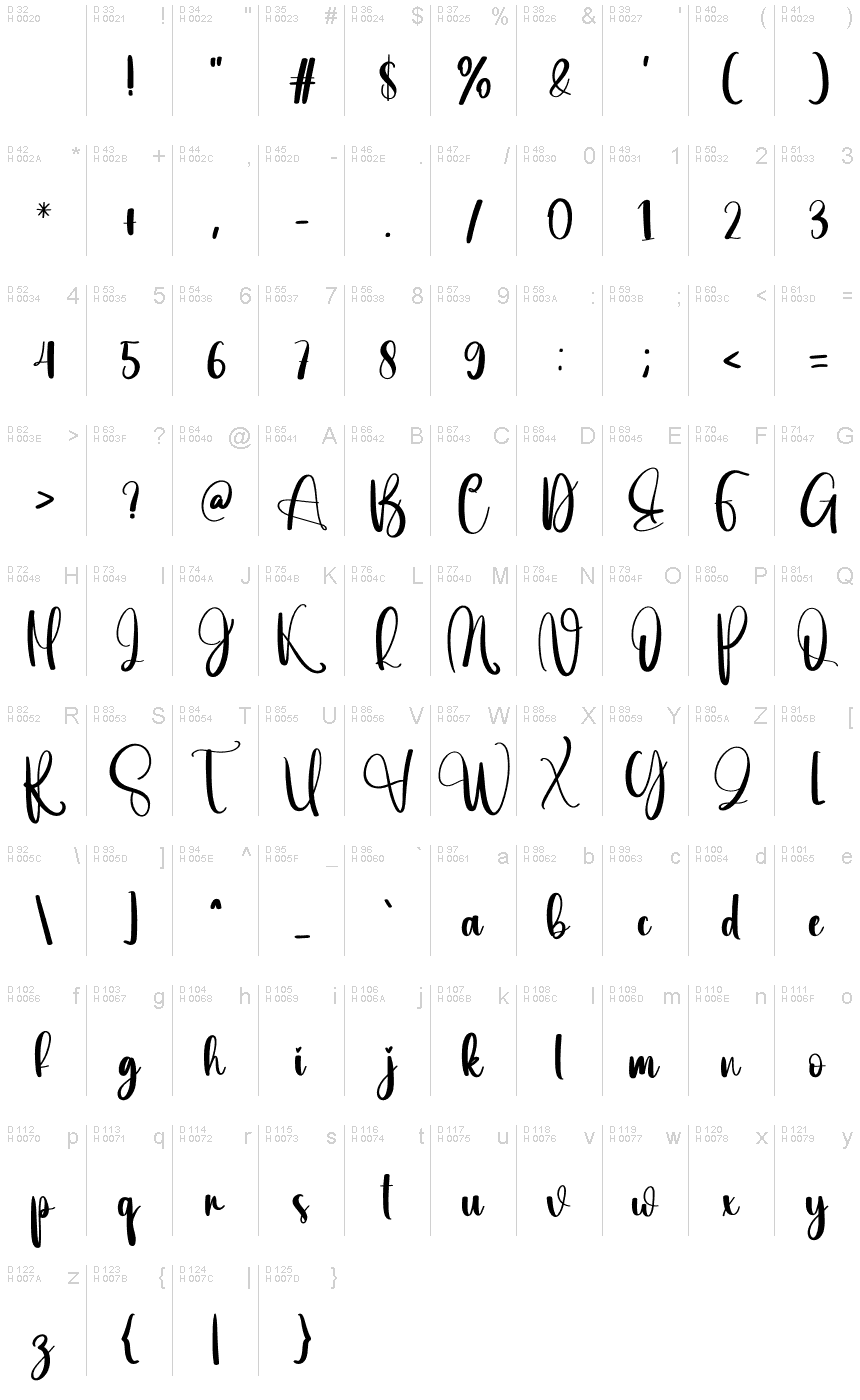
Another
Another, crafted by Scratchones, is a handwritten font that exudes a personal touch with its beautifully imperfect lines and fluid curves. Its casual elegance captures the essence of spontaneous handwriting, making it an ideal choice for designs that require an intimate, approachable feel.
The organic flow of this typeface lends itself to projects seeking to convey authenticity and warmth, from bespoke invitations to branding elements that aim for a handcrafted look. Another's aesthetic appeal lies in its balance between readability and artistic flair, ensuring that it stands out in applications as diverse as book covers, product packaging, or social media graphics.
Embrace the charm of Another for your next creative venture and let its unique style infuse your work with personality.